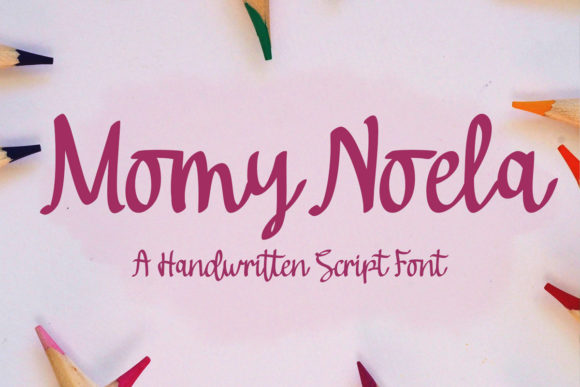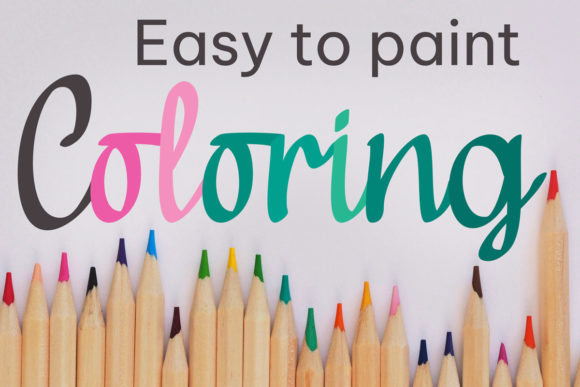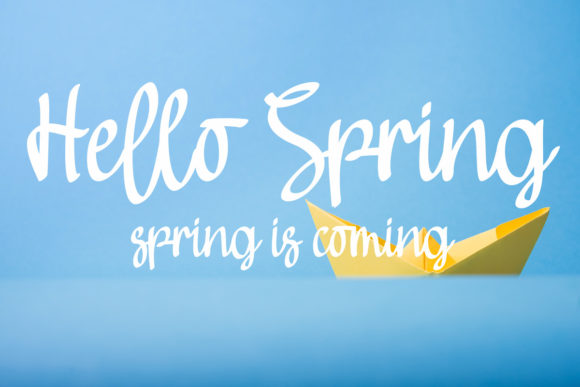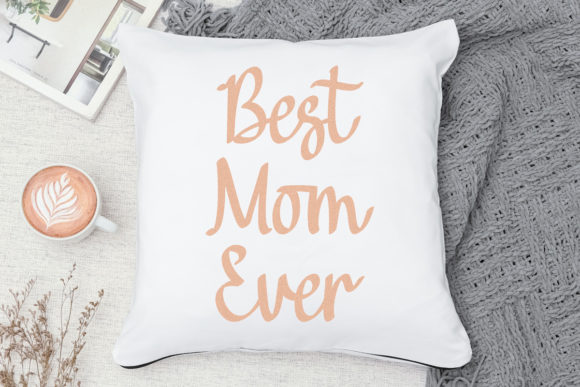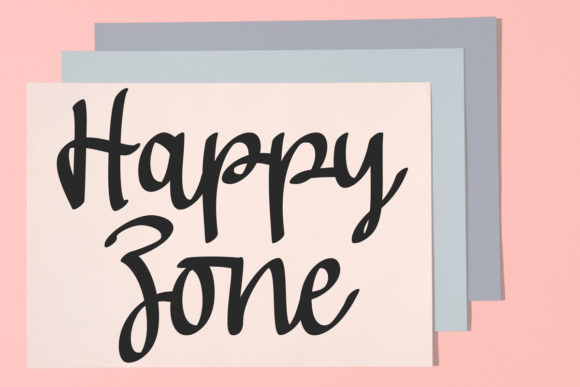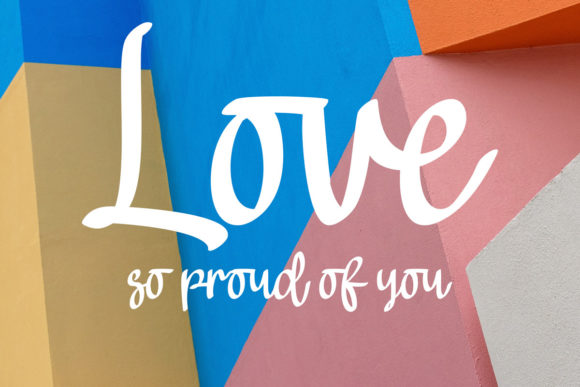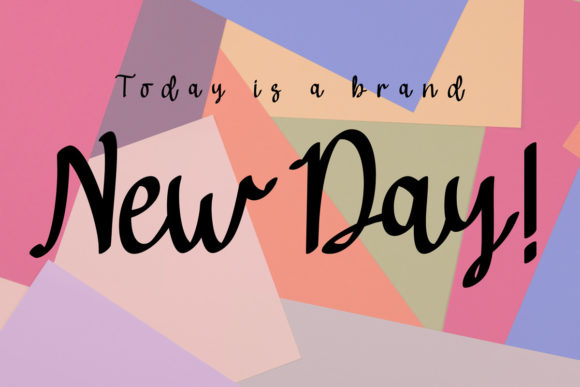
Momy Noela Font
About Momy Noela Font
“Momy Noela” presents itself as a lovely and timeless handwritten font, characterized by unique and beautiful touches in every letter. Crafted to infuse life into your designs, this font stands out with its stylish alternates and ligatures, making it a perfect match for a wide range of creative projects.
The charm of “Momy Noela” lies in its timeless handwritten style, adding a touch of elegance to each character. The font’s lovely and unique features contribute to a design that transcends trends, ensuring a lasting and classic appeal. The thoughtful alternates and ligatures enhance the font’s versatility, allowing for a customized and polished look.
Every letter in “Momy Noela” is a work of art, designed to bring a sense of beauty to your compositions. The handwritten touch adds a personal and human element, making it suitable for various contexts, from formal to informal designs.
The stylish alternates and ligatures of “Momy Noela” provide a wealth of design possibilities. These features enhance the font’s adaptability, allowing you to create a customized and refined appearance in your projects. Whether you’re working on branding, invitations, or any other design endeavor, these elements contribute to a polished and unique outcome.
In essence, “Momy Noela” is more than just a font; it becomes a design ally that adds a touch of timeless beauty to your projects. With its lovely and unique handwritten features, along with stylish alternates and ligatures, this font stands ready to elevate your designs, ensuring a classic and sophisticated look. Whether applied to branding, invitations, or other creative endeavors, “Momy Noela” offers a versatile and elegant typography option that transcends the boundaries of time and trends.